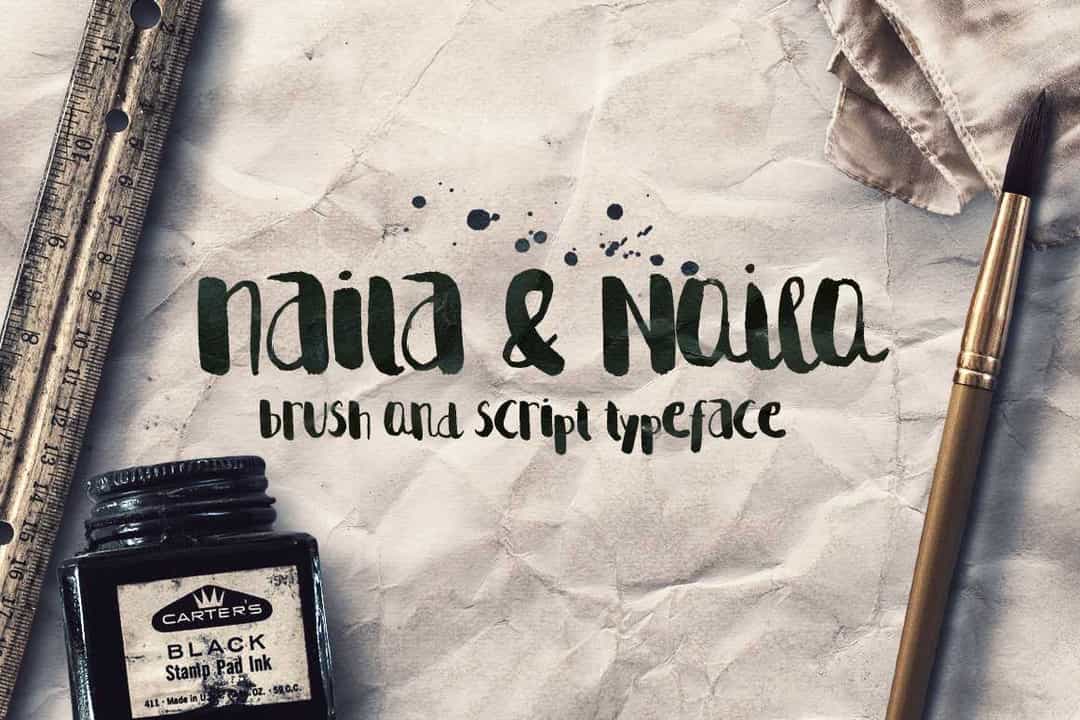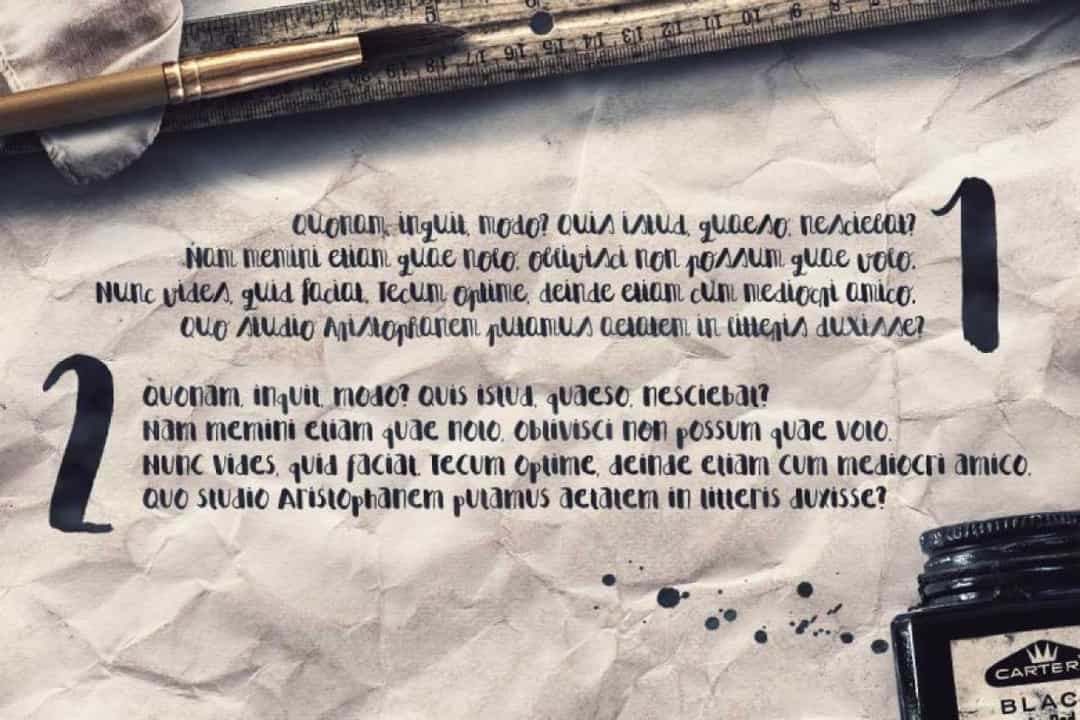
Naila Script is a good brush and script typeface suitable for Logo design project like display use, branding or advertisement in your design/ print work or banner posters and banner displays. By actually this is two fonts that are perfectly matching and created an exclusive script font like Naila Script. Makes it stands out from the other.